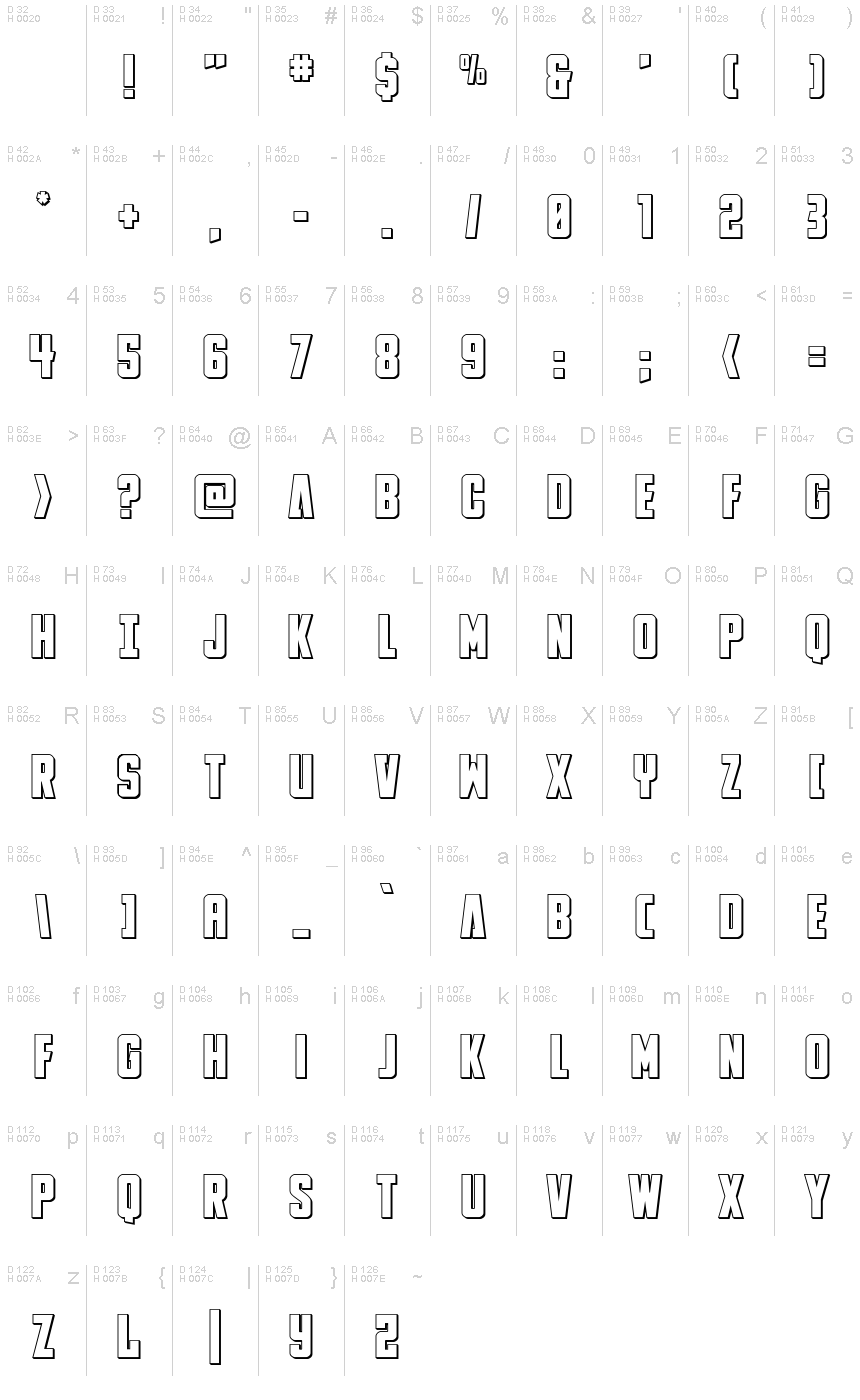
DiaClone 3D
DiaClone 3D leaps off the page with its dynamic three-dimensional style, a creation by Iconian Fonts that boldly transforms any text into a visual spectacle. Its sleek, condensed form lends itself to a strikingly efficient use of space without sacrificing impact. The font's chiseled contours and shadowed depth create an illusion of volume that can't help but capture the viewer's attention.
Perfect for headlines, logos, and any application where a strong visual statement is required, DiaClone 3D adds depth to branding projects and promotional materials. Its assertive presence makes it particularly well-suited for entertainment media, advertising campaigns, and anywhere an immersive font can elevate the message.